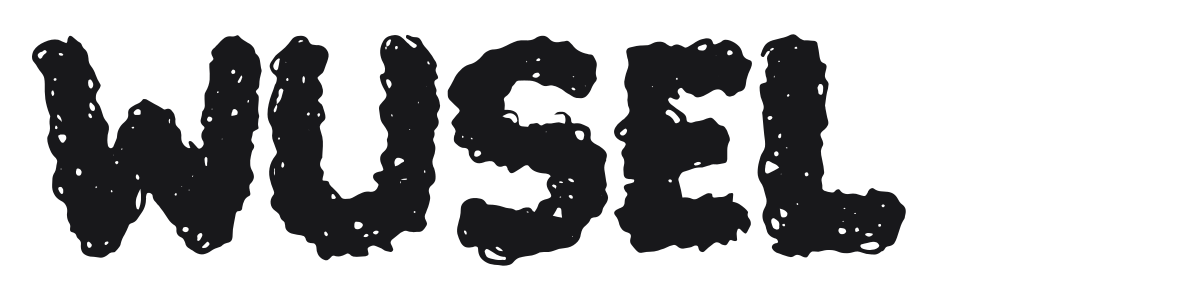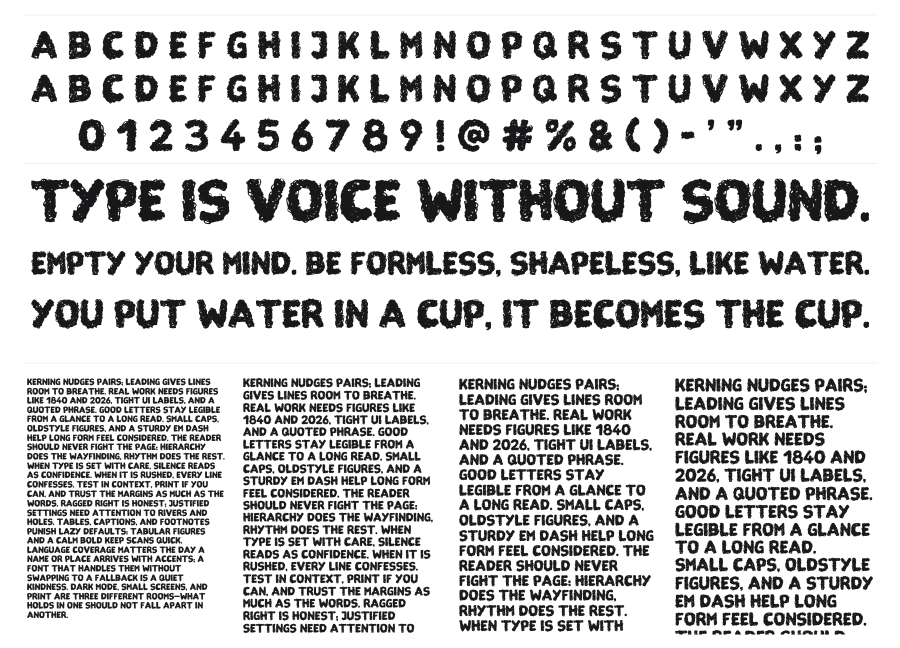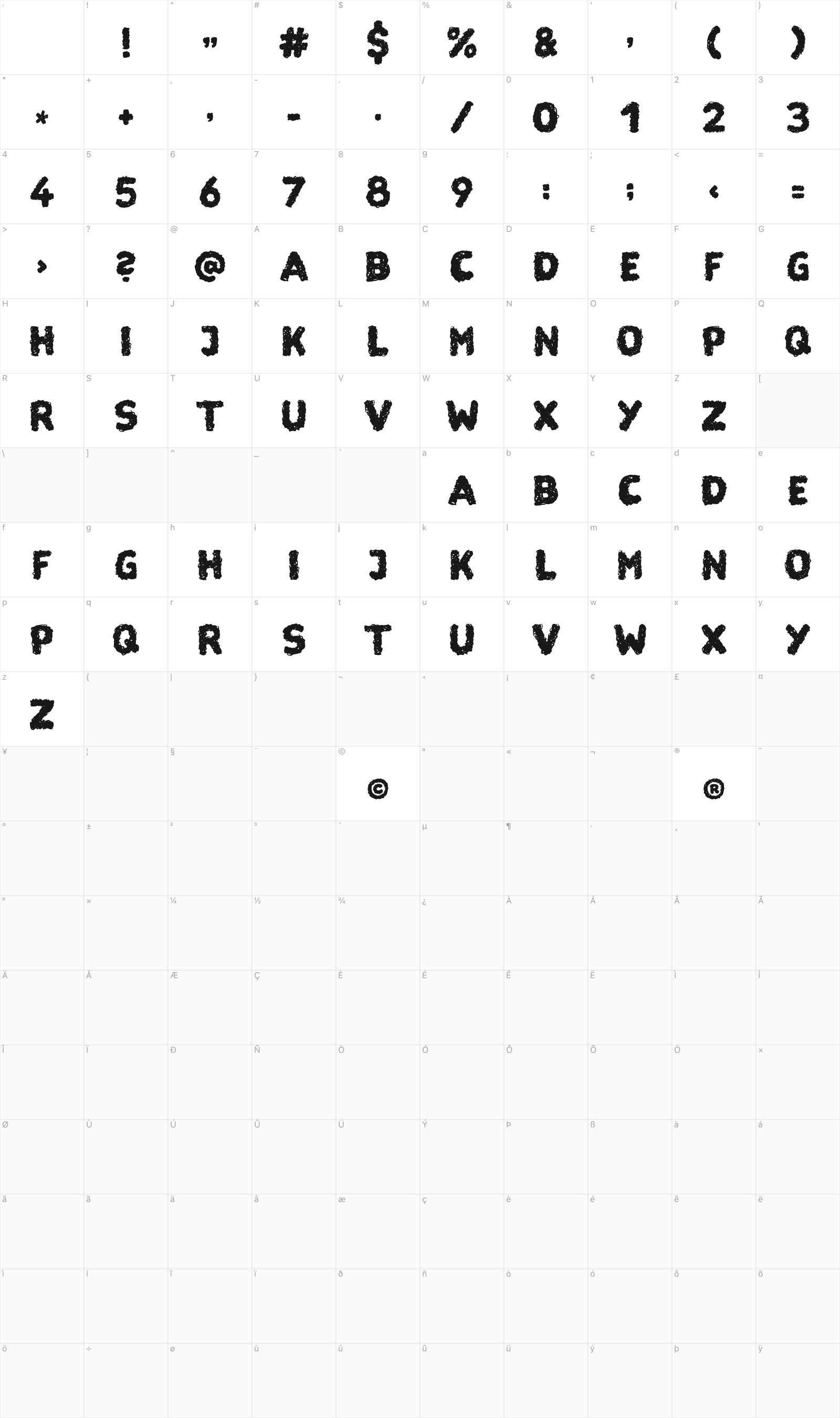
Wusel
Wusel is a heavy display font buried beneath layers of scratchy, looping texture that makes every character look hand-wound from wire or scrawled in frantic pen strokes. The underlying structure is a bold blocky sans, but the distressed surface treatment completely dominates, giving it an raw, almost manic energy. Best used large, where the dense texture reads as deliberate character rather than noise.